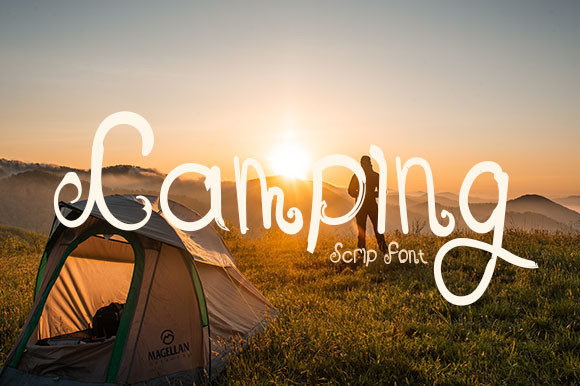
HomePersonal Use FreeCamping Personal Use Free Camping FacebookXPinterestWhatsApp 1 of 2 About Camping Font Camping is a lovely and delicate script font that exudes elegance and class. This font was particularly crafted for those who need a beautiful and refreshing look to their designs. DOWNLOAD ON CREATIVE FABRICAThis font is sold and delivered by Creative Fabrica. Font Canyon may earn a commission if you buy through this link. People also explored Kalimastha Font Daddy Ainslie Contrast Mockup Room Font Trophyita Font The Ruler Font Zalderdash Tiara Font Fat Sally 486 0 TagsBest Camping Font Previous articleDear MonitaNext articleAuthurium LEAVE A REPLY Cancel reply Comment: Please enter your comment! Name:* Please enter your name here Email:* You have entered an incorrect email address! Please enter your email address here Website: Save my name, email, and website in this browser for the next time I comment. Personal Use Free Hiters Personal Use Free Read more about this font Heartburn Personal Use Free Read more about this font Scoothlane Personal Use Free Read more about this font Bruttney Personal Use Free Read more about this font BLOG How to Cut Any Font on Cricut: Convert a Font to SVG (Free) Turn any font into a clean SVG so it cuts crisp on Cricut - a quick 3-step workflow using a free font-to-SVG tool. Free vs Paid Fonts: Why Investing in Premium Fonts Is Worth It Free Fonts Risk: Why Free Fonts Can Be Dangerous for Designers Modern Sans-Serif Fonts That Brands Love in 2025